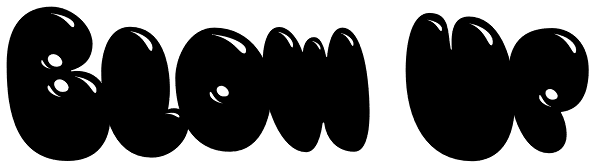
Blow Up
Type designer Hannes von Döhren created a display typeface called "Blow Up". A bubbly, sweet font with nice light effects. Perfect for use in big sizes on posters or flyers. You can use Blow Up Sans & Blow Up Bling together to influence the color of...
Blow Up
Blow Up Sans
Blow Up Bling